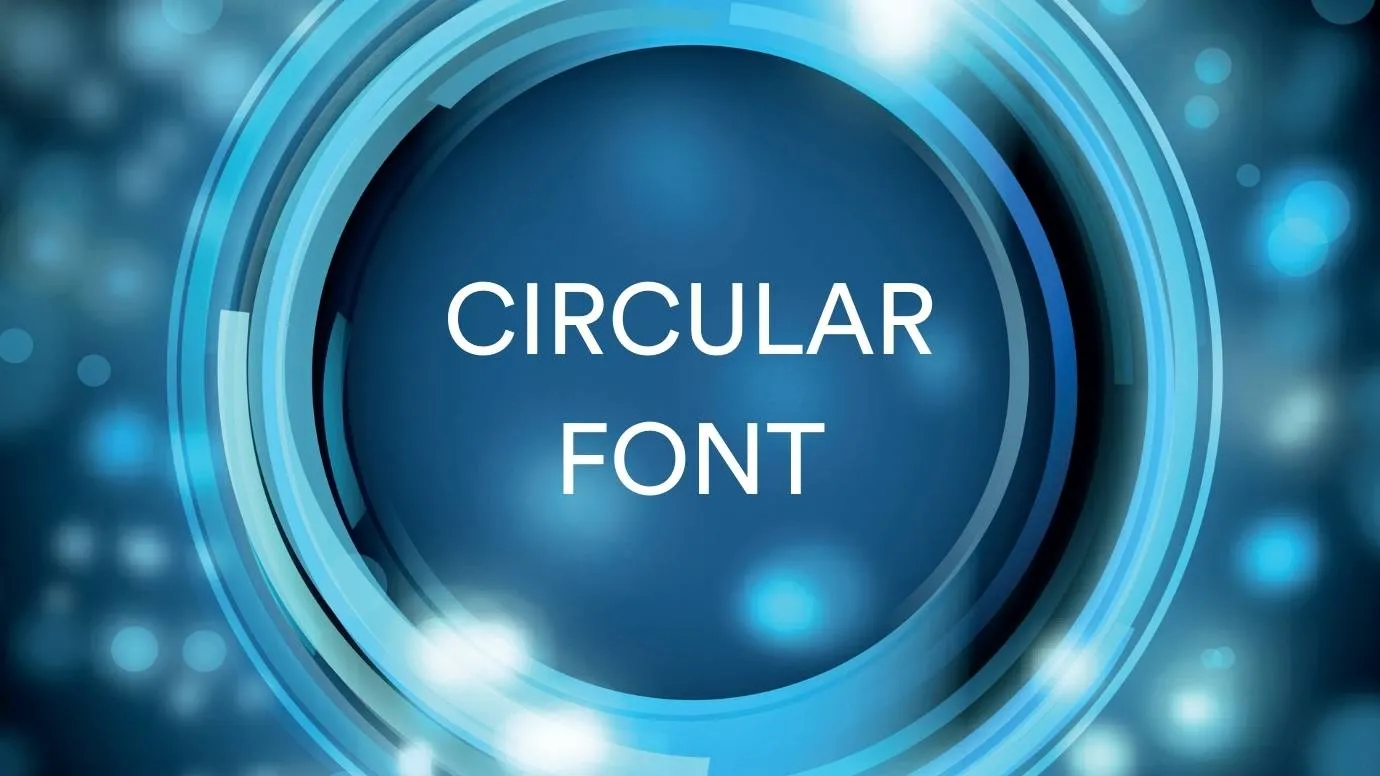
Circular Book is an extraordinary sans serif typeface belonging to the famous font family. The designer of this astonishing design is a Swiss graphic designer Laurenz Brunner who has been released in 2013 through Lineto type foundry.
The lowercase letters of this typeface are very unique that making it handy and attractive among all other geometric sans serifs such as Century Gothic font.